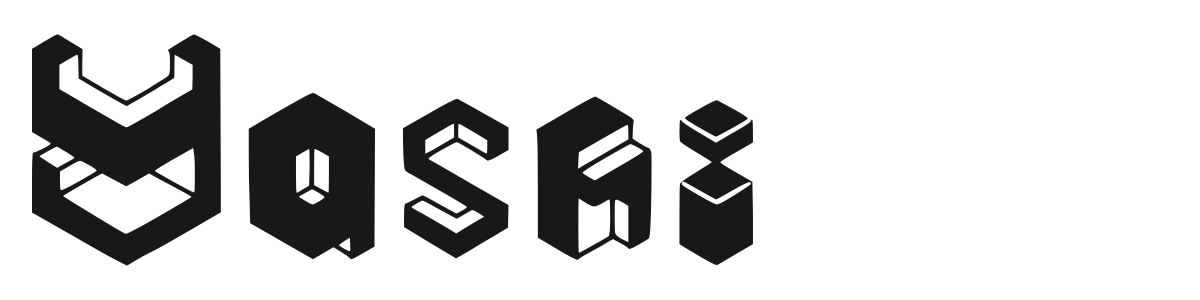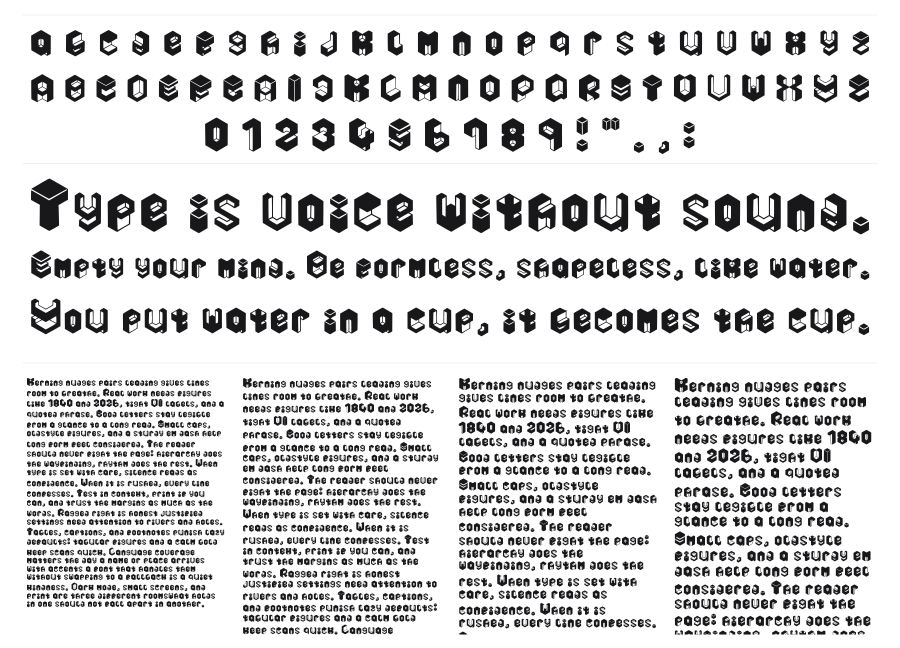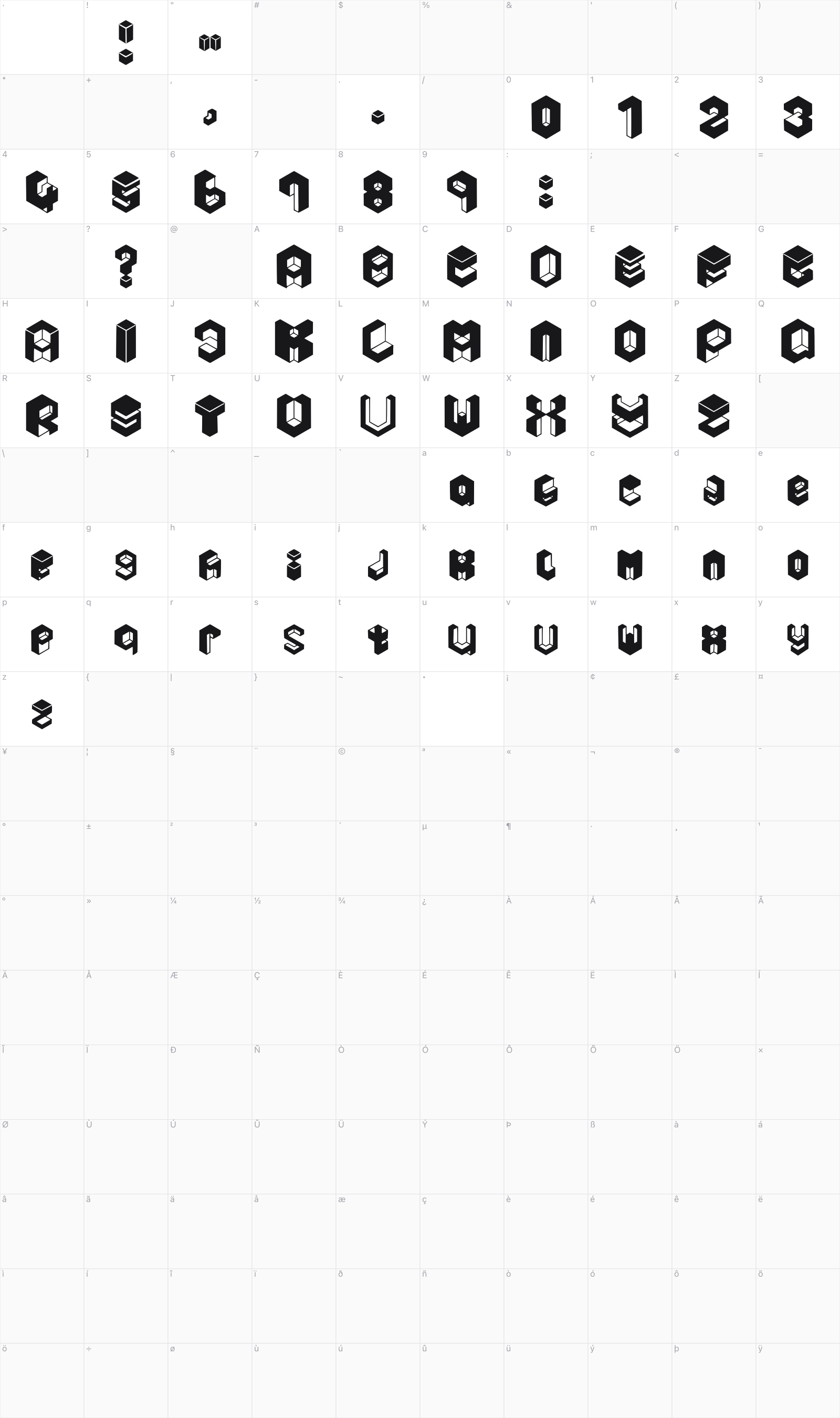
Yashi
by Yussrri Ab
Yashi is a heavy display typeface built from isometric cube geometry, rendering each character as a three-dimensional block structure. The simulated depth comes from contrasting flat facets rather than stroke variation, giving it a bold, architectural presence. It occupies a rare niche between pixel art and constructivist abstraction.